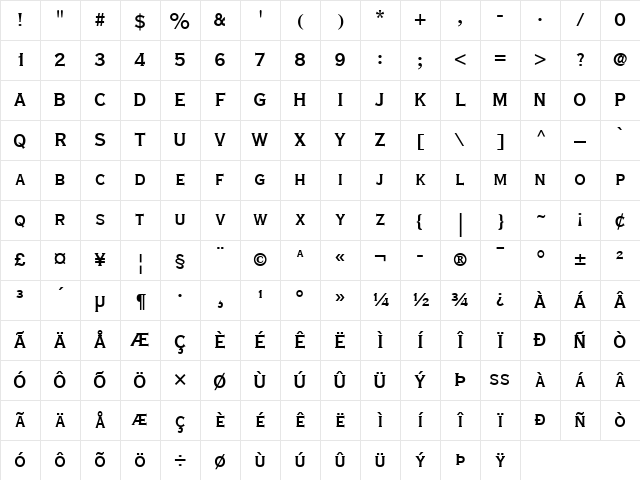
Copperplate LT 30bc Regular
Design Context for Copperplate LT 30bc
Copperplate LT 30bc is a composed and adaptable typeface that performs quietly and consistently across a wide range of design contexts. Its slender proportions lend an understated elegance to any composition.
Pro Tip: Use Copperplate LT 30bc in both headline and body roles to test its range before committing to a single application.